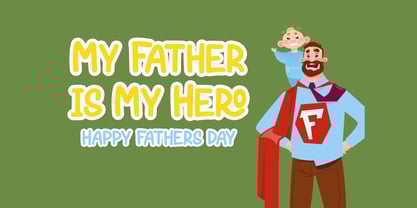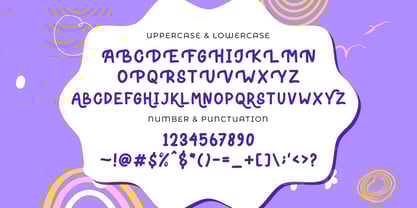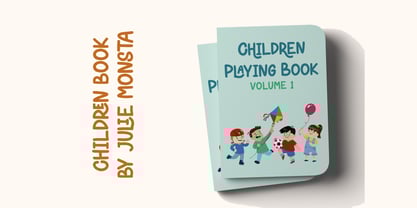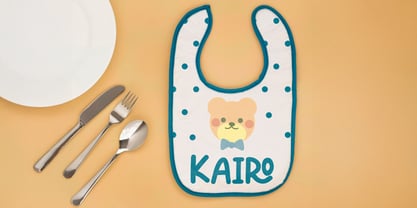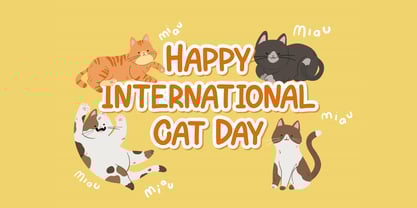
The Hirokuda Font Family was designed by Virgiawan Listanto and published by Stringlabs Creative Studio. Hirokuda contains 1 styles. More about this family
Hirokuda is a bold and energetic playful display font crafted to spark fun and creativity. With its quirky letterforms, rounded edges, and cheerful vibe, it’s perfect for children’s books, cartoon titles, posters, games, packaging, and social media graphics. This font radiates joy and imagination, making every design feel lively and engaging. Add Hirokuda to your creative toolkit and bring a fresh, playful personality to your projects with ease.
Hirokuda